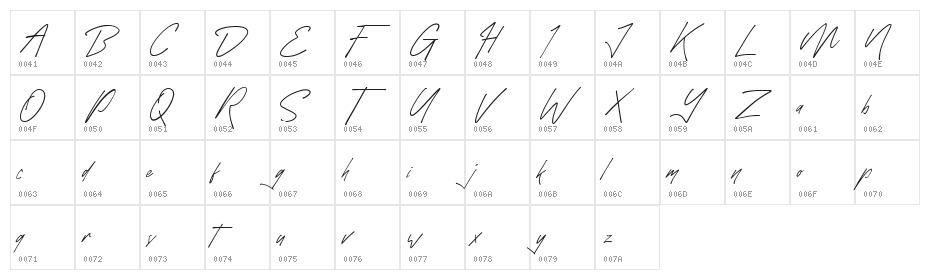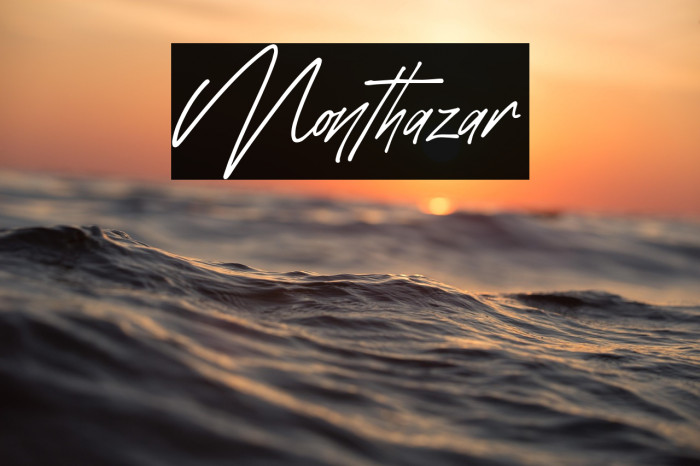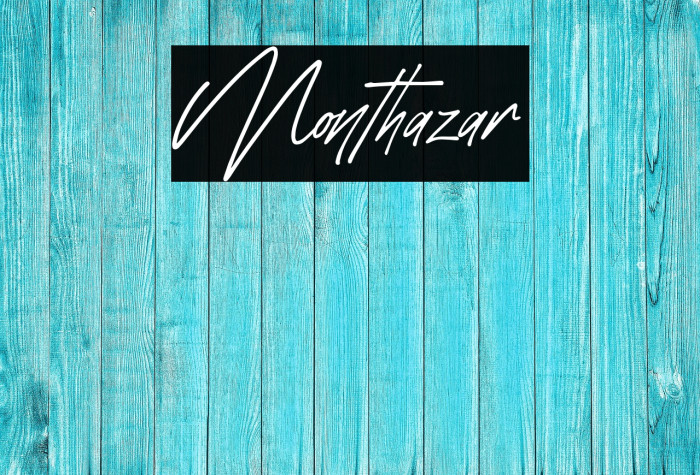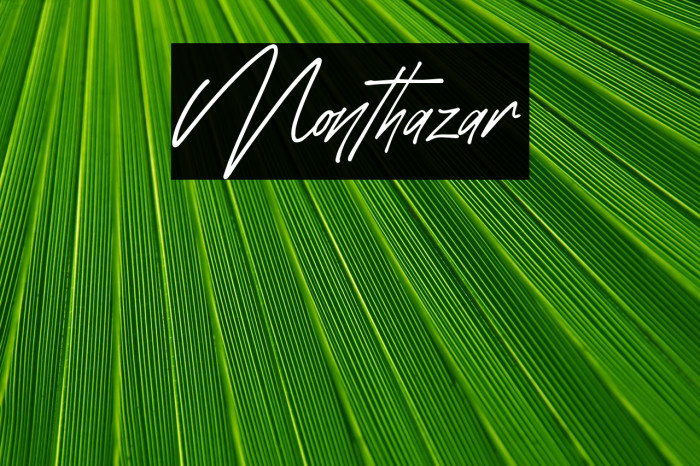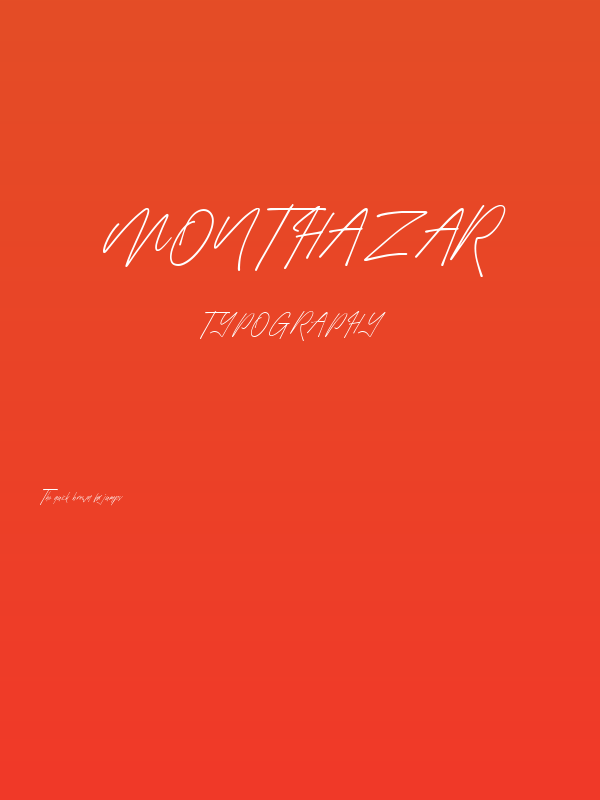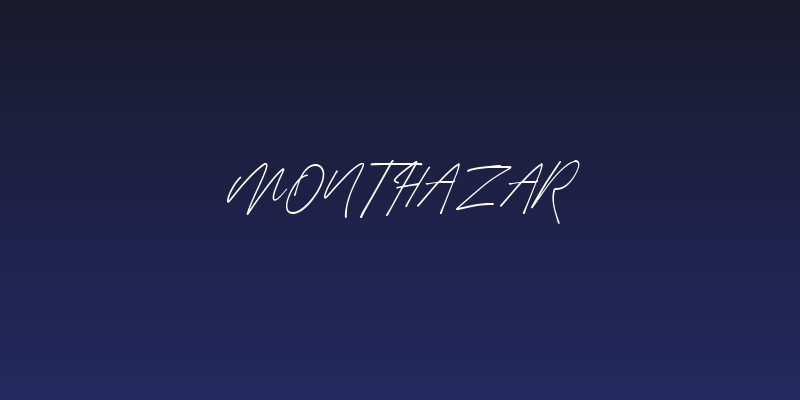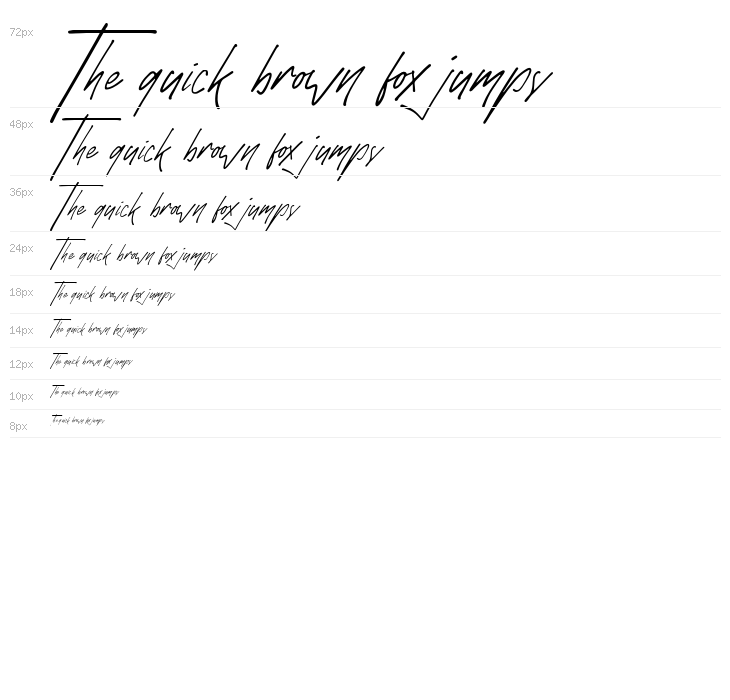
Monthazar Font
Monthazar Description
This font features a dynamic and fluid script style, characterized by its elegant, flowing lines and a sense of movement. The uppercase letters are tall and slightly slanted, giving a sense of sophistication and grace. The lowercase letters maintain a consistent rhythm, with smooth connections between characters, enhancing the cursive appeal. The overall appearance is both modern and timeless, suitable for creating a personal touch in design projects. The font's thin strokes and slight variations in line thickness add a touch of delicacy and refinement.
| Proposed Projects | Ideal for wedding invitations, personal branding, elegant logos, and stylish stationery. |